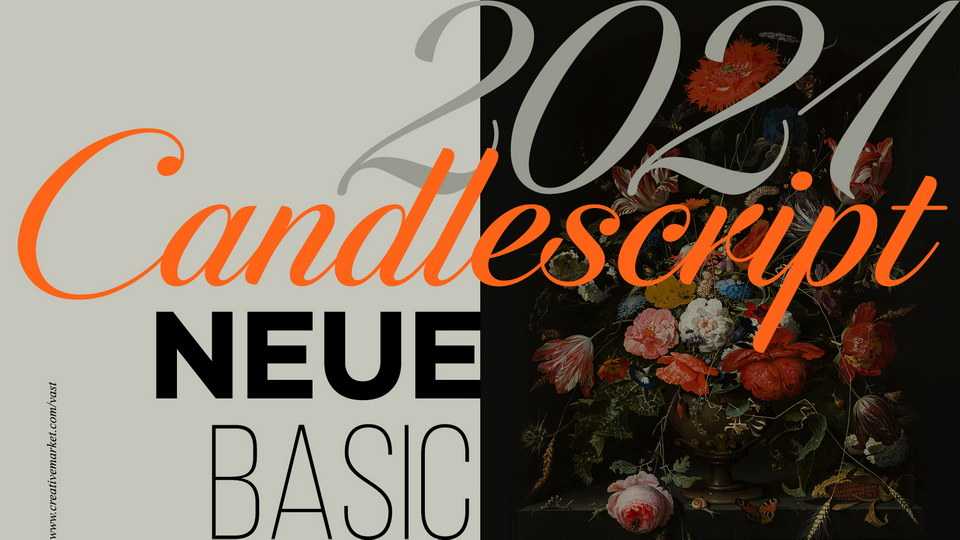
Candlescript Neue Script Font › Fontesk – Download Grátis
Download Candlescript Neue font, is a stunning script typeface inspired by the classic copperplate calligraphy and combined into modern lining with very precision and high quality in details, more beauty, smooth and flow.